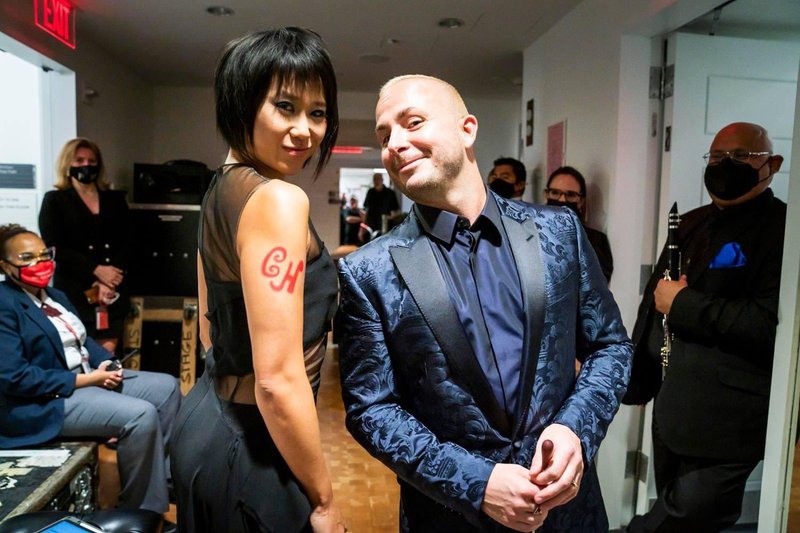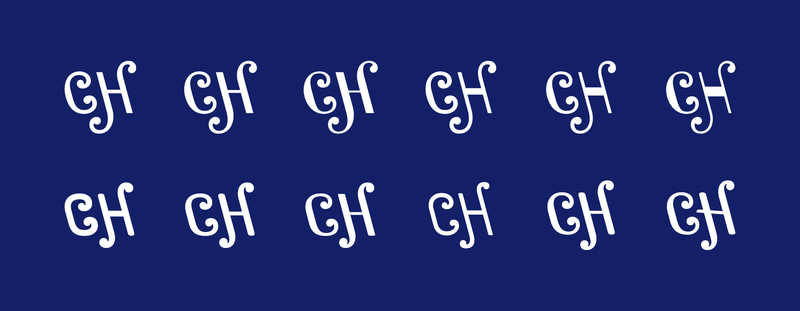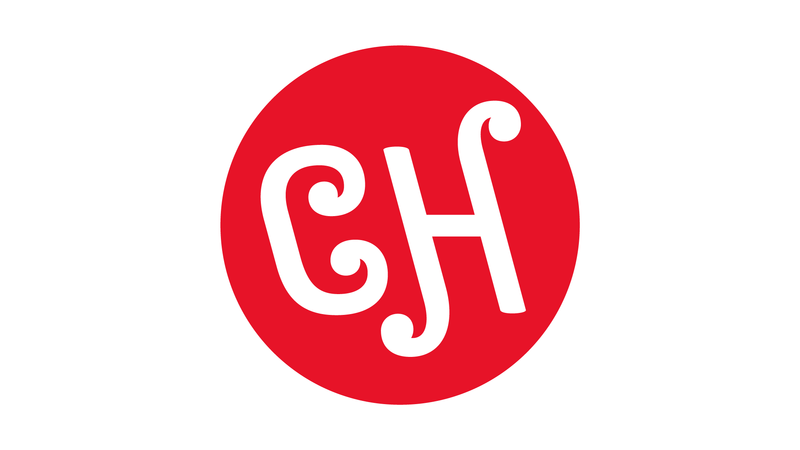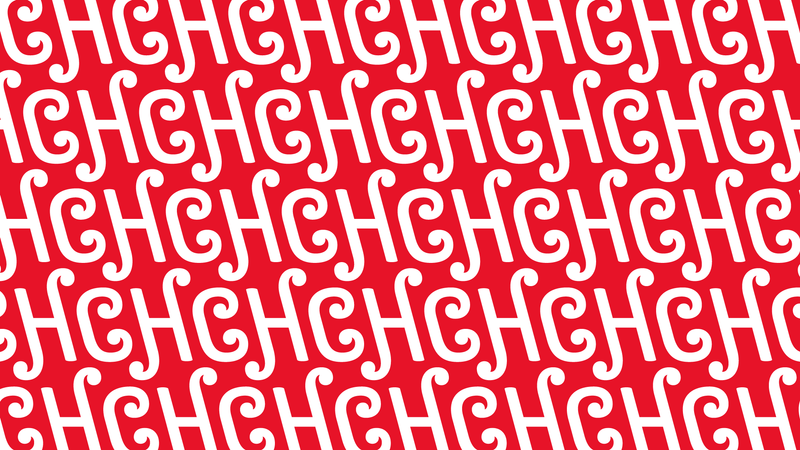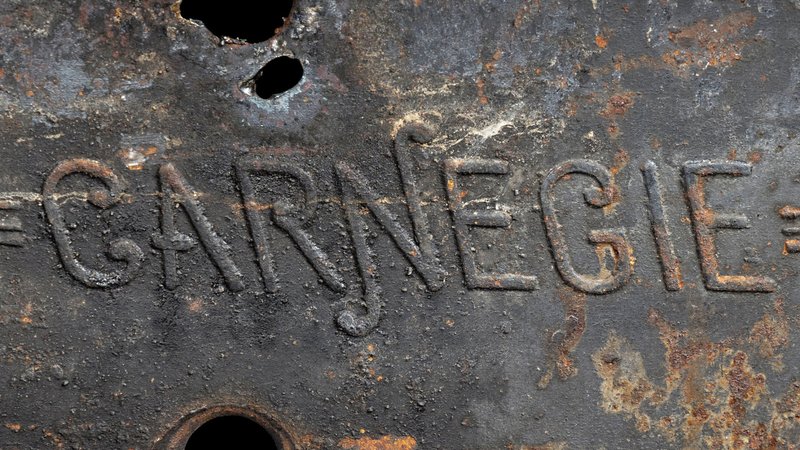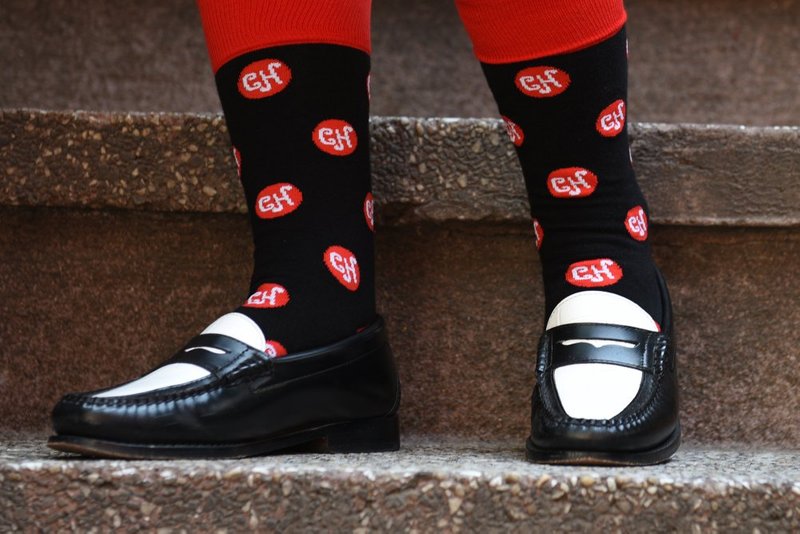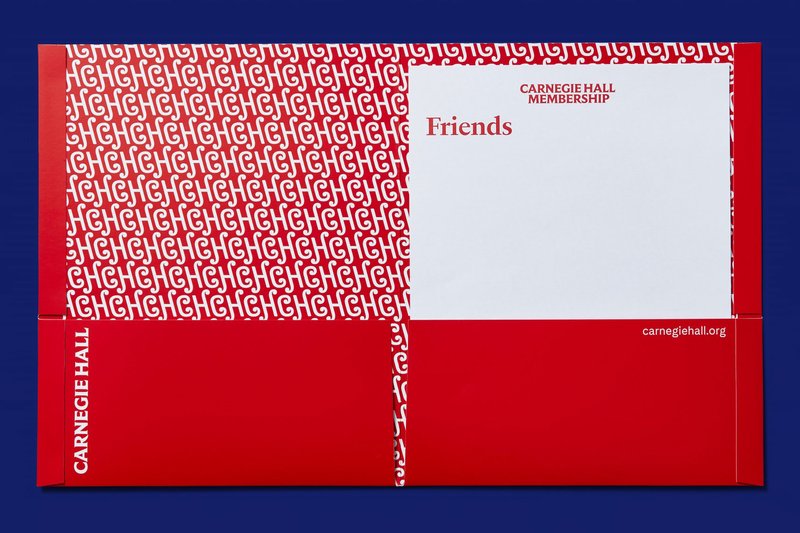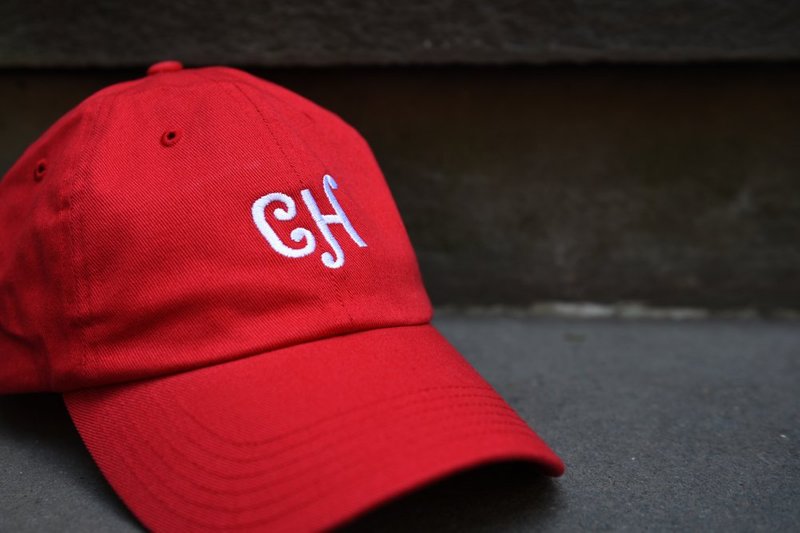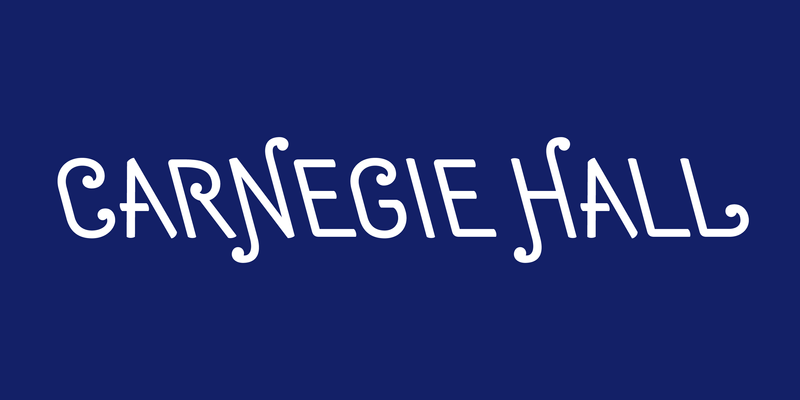
Custom lettering for Carnegie Hall
Carnegie Hall logotype (lettering by Frere-Jones Type) and monogram (lettering by XYZ Type)
One of the most magnificent monograms I’ve ever seen. If anything, because it is an affront to all of the design rules.
Helping modernize a musical icon
We teamed up with Champions Design to refresh and rebrand the 130-year-old Carnegie Hall in New York City. Jesse Ragan was hired to interpret a variety of Carnegie Hall’s visual assets and historical objects to explore what could be incorporated into a new identity system.
Here is the story of how structural steel beams from Carnegie’s own steel factories became the face of Carnegie Hall’s social media today.
Close-up of the name "Carnegie" embossed in steel
Lettering molded into a steel beam from Carnegie Hall
Inspired by structural steel
As so often happens with projects we work on, there were many historical pieces from Carnegie Hall’s archive that inspired directions for the new identity. Champions Design’s extensive research and the behind-the-scenes tour of the facility led them to focus on the actual steel beams supporting the building itself.
Andrew Carnegie was a steel magnate and one of the richest people in America in the late nineteenth and early twentieth centuries. Toward the end of his life, he pledged most of his vast fortune to philanthropic projects focused on libraries, world peace, and education; he commissioned William Burnet Tuthill to build Carnegie Hall for musical performances in 1891.
Not surprisingly, the building was constructed using the best steel there was: Carnegie Steel from Carnegie’s own factories. In the early 2000s, these steel beams were uncovered during a renovation and it was discovered that the name “CARNEGIE” was molded into the beams in all caps. This sort of historical lettering was the perfect spark of an idea that could not be ignored, and Jesse was tasked with expanding it into a full word mark.
A back-slanted curly all-caps rendering of the name "Carnegie Hall"
Direct digitization of the steel beam lettering with invented lettering for the word “HALL”
Forming the monogram
The process started with a direct typographic interpretation of the steel-beam lettering, traced from a photograph. Jesse made educated guesses as to what the missing letters for the word “HALL” would look like in order to create a full wordmark.
Although this mark was obviously historically tied to Carnegie Hall, the Champions Design team felt that it was a bit too decorative and would distract from the rest of the rebranding. Later on in the project, this word mark became the inspiration for the “CH” monogram, which became a supportive element for the more informal expression of the new Carnegie Hall identity.
A grid of different ideas for CH monograms
Unused options for the CH monogram
Jesse’s like an extension of our design team … and he’s such a scholar when it comes to type design and typography.
Practice and fine-tuning
After many rounds of refinement, Jesse was able to fine-tune the CH monogram to give it a sense of playfulness with just a touch of reference to musical notation. These small details—embellishing the ball terminals, tweaking the join between the stems and terminals, and adjusting the length of the swashes—gives the monogram vitality and flexibility as part of the larger brand identity.
Through this process, the CH monogram became part of the larger Carnegie Hall rebranding, which deftly combined a custom logotype drawn by Fred Shallcrass of Frere-Jones Type into a flexible identity that refreshed the visual expression of the famous hall and its place in musical history.
Carnegie Hall monogram
This new monogram becomes a digital component that’s so key to how Carnegie Hall is able to communicate across social media and even more informal circumstances, such as merchandise.
Sara Villagio, chief marketing officer, Carnegie Hall
A hat with the CH monogram embroidered on it
CH monogram hat. Photo: Carnegie Hall
Close up feet wearing of a pair of socks with the CH monogram woven into them
CH monogram socks. Photo: Carnegie Hall
A red folder with the CH pattern inside
CH monogram used as part of their stationery system. Photo: Champions Design
Now, the CH that was once on a steel beam is a CH that is the Twitter icon, which is meaningful because the history of the place is meaningful to the experience.
Jennifer Kinon, co-founder of Champions Design
Yuja Wang and Yannick Nézet-Séguin pose for a photo backstage at Carnegie Hall. On Yuja's bare shoulder is a version of the CH monogram hand-drawn with lipstick.
Pianist Yuja Wang with conductor Yannick Nézet-Séguin at the first in-person concert after the pandemic shutdown. Note the monogram drawn on her shoulder! Photo: Yuja Wang’s Twitter account
Classical pianist Yuja Wang joined conductor Yannick Nézet-Séguin and the Philadelphia Orchestra to play piano on Carnegie Hall’s iconic stage—with a hand-drawn CH monogram on her shoulder. If this isn’t a symbol of the exciting rebirth of Carnegie Hall, we aren’t sure what is.